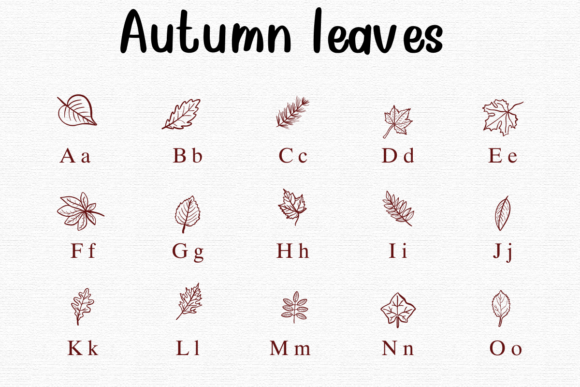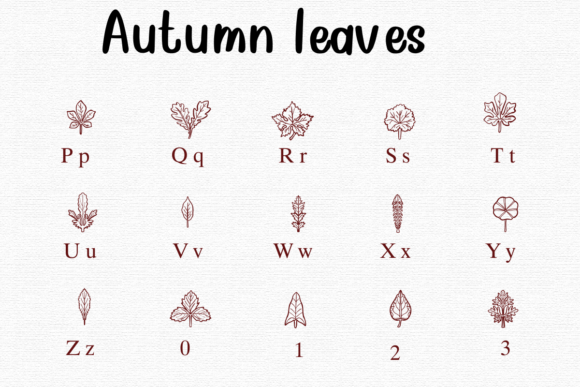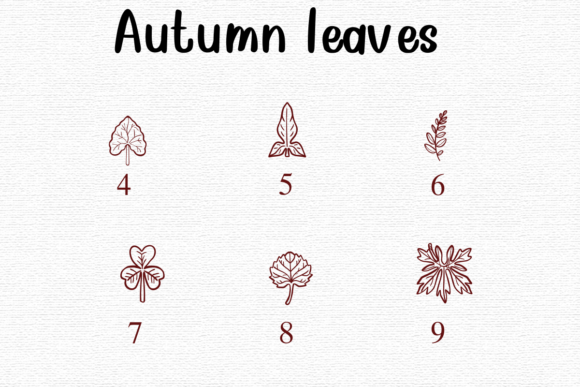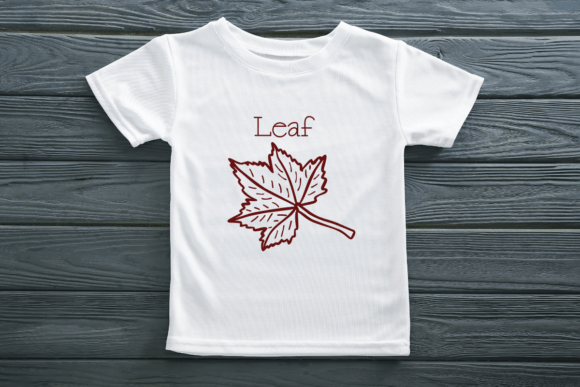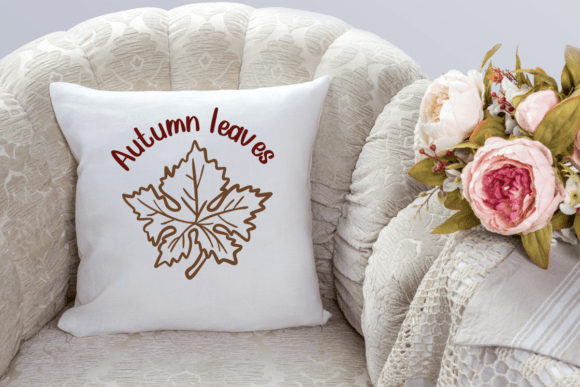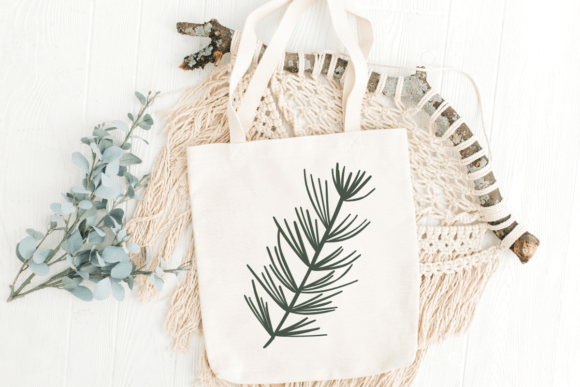
Unleash the Magic of Autumn with a Font that’s Simply Leafing Beautiful
Do you ever find yourself wandering through a crisp autumn forest, surrounded by the vibrant hues of changing leaves? The crunch of leaves beneath your feet, the warmth of the sun on your skin, and the sense of creative inspiration that washes over you. For designers, this feeling is a constant quest, and it’s exactly what the Autumn Leaves Font was created to evoke.
This sketched dingbats font is more than just a pretty face – it’s a tool to help you bring your creative projects to life. From wedding invitations to DIY crafts, decorations, and logos, the Autumn Leaves Font is the perfect addition to your design arsenal. Its unique style and charm make it a valuable asset for any designer looking to add a touch of autumnal magic to their work.
Autumn Leaves Font Key Features
- Font Family: Autumn Leaves is a unique, hand-drawn font with a natural, autumnal theme.
- Unique Characteristics: The font features intricate, hand-drawn leaves and branches that create a sense of movement and texture, making it perfect for autumn-themed designs, invitations, and greeting cards.
Designer Review: Autumn Leaves Font
Overall, I think the Autumn Leaves font is a lovely addition to any design project. The ✨ intricate details and organic feel make it perfect for autumn-themed designs, nature-inspired graphics, or even wedding invitations. The font’s unique blend of elegance and playfulness is sure to capture attention.
- ✨ Beautiful, hand-drawn feel that adds a personal touch to designs
- ⚠️ The font’s organic feel can also make it difficult to read at very small sizes
Overall, I would say that the Autumn Leaves font is a solid choice for designers looking to add a touch of autumn charm to their projects. With a little creativity and planning, its limitations can be easily worked around.